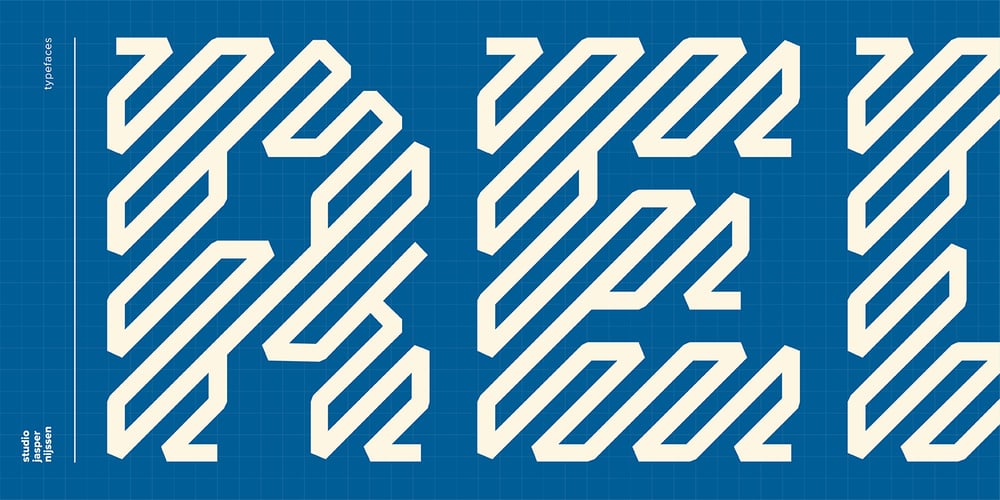
WBP Red Tape
WBP Red Tape font
WBP Red Tape Font Family was designed by Jasper Nijssen and published by Studio Jasper Nijssen. WBP Red Tape contains 1 styles and family package options. A wise orange cat said once: There are three things certain in life. Death, taxes and teddy bears. The closest thing to a fourth is red tape. Restricting you, bounding you to the rules of a bureaucratic organisation. My advise, carry a scissor with you all the time to cut through it. WBP Red Tape is a great monospace font specifically designed for headings and logo design.